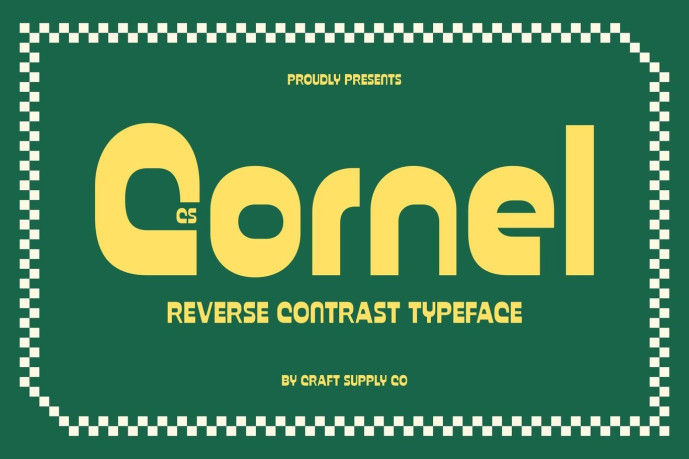
Cornel – Reverse Contrast Font
CS Cornel – Reverse Contrast Display Sans Serif: Where Retro Funk Meets Bold Visual Impact Bold Letterforms with Funky Character This is a display sans serif font featuring reverse contrast, where the horizontal strokes are thicker than the vertical ones, creating an unconventional and eye-catching appearance. Its bold letterforms and funky retro personality deliver a vibrant visual rhythm that instantly captures attention, making every word feel expressive, energetic, and full of character.
Retro-Inspired Design with Contemporary Confidence This font blends nostalgic charm with modern simplicity. Its clean sans serif construction keeps the font versatile and highly legible, while the reverse contrast styling introduces a playful twist that gives designs a distinctive vintage flair. The result is a typeface that feels both timeless and refreshingly original.
Dynamic Style with Strong Visual Presence This font creates a unique visual identity that stands out across a wide variety of creative applications. Its unconventional contrast adds movement and personality, making headlines and display text feel lively, memorable, and full of impact without sacrificing clarity.
Perfect for Headlines, Posters, Logos, and Packaging Ideal for headlines, posters, logos, branding materials, packaging, editorial layouts, advertising campaigns, merchandise, and other creative projects that demand bold visual presence and retro-inspired personality. Its reverse contrast design and funky aesthetic make it perfect for typography that communicates confidence, originality, and nostalgic charm.